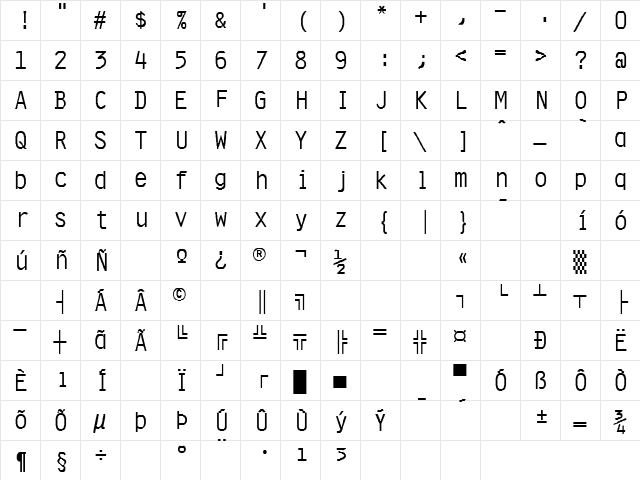
Presentor Regular
Design Context for Presentor Typeface
Presentor takes a measured approach to typography — its balanced proportions and neutral character make it a reliable workhorse for both digital and print work.
Pro Tip: Use Presentor in both headline and body roles to test its range before committing to a single application.